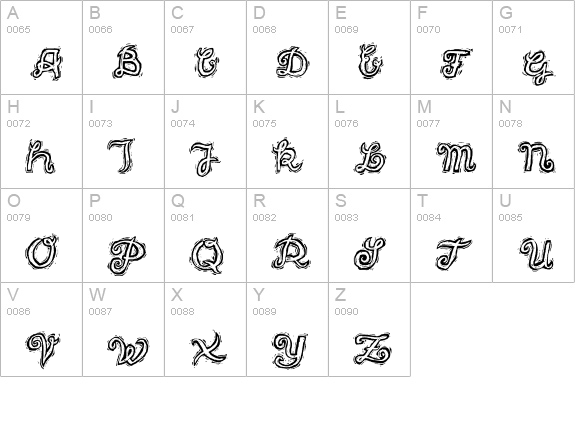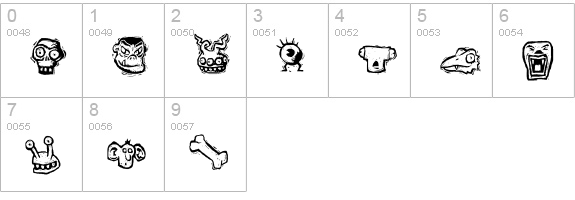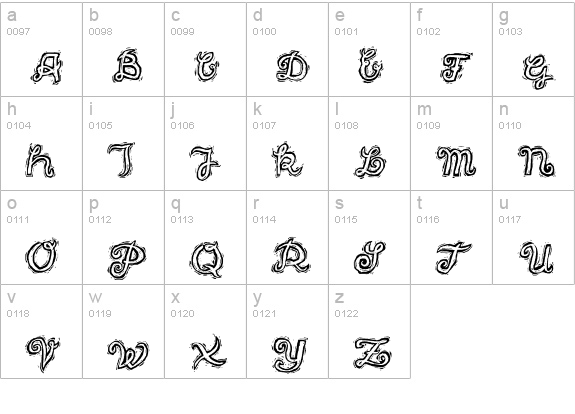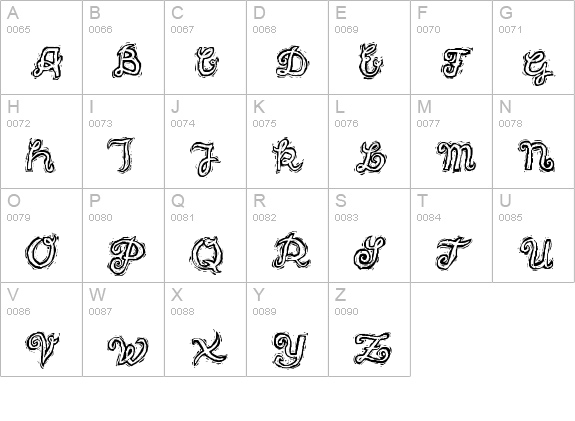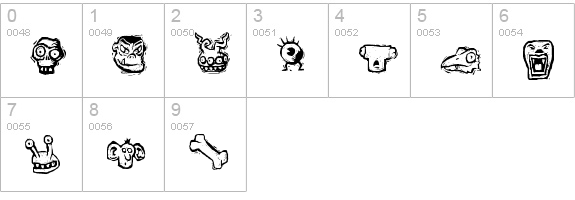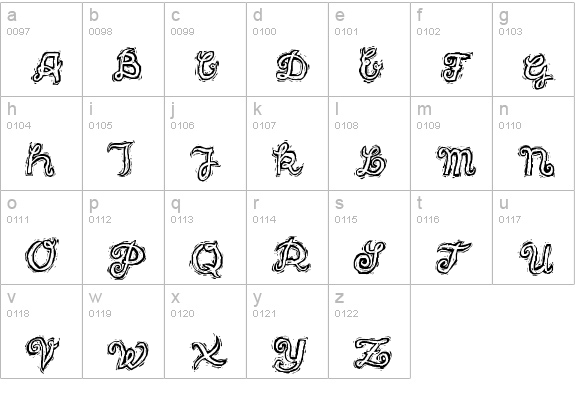
freak Font Details
Freak Font is a bold and eye-catching typeface that is sure to make a statement in any design project. Its quirky and unconventional style will add a unique touch to your creations, making them stand out from the crowd. With its playful and energetic vibe, Freak Font is perfect for projects that require a fun and lively aesthetic. The best part? Freak Font is available for free download at FontsMarket.com, giving you access to this fantastic font without any cost. Whether you're working on a poster, flyer, logo, or any other design project, Freak Font will bring a fresh and exciting look to your work. Embrace creativity and individuality with Freak Font – the perfect choice for those who dare to be different.